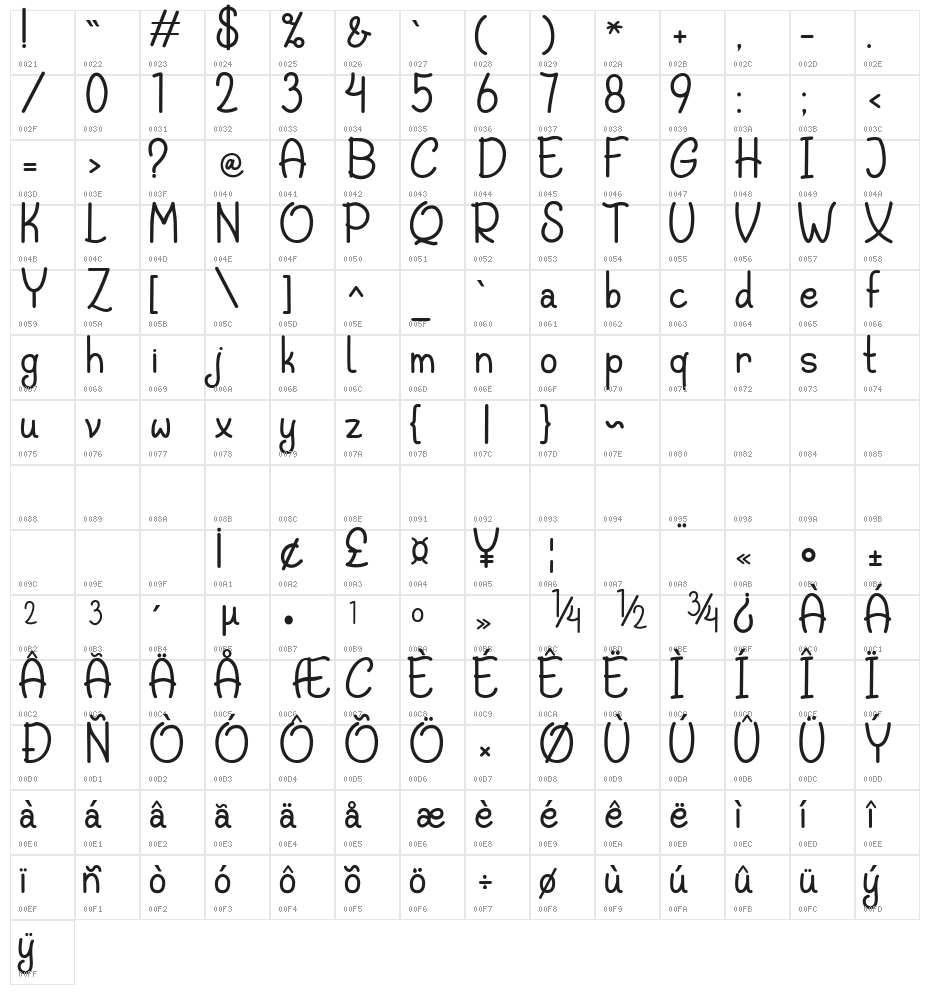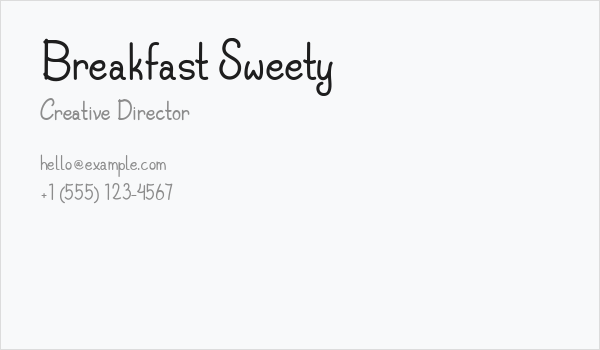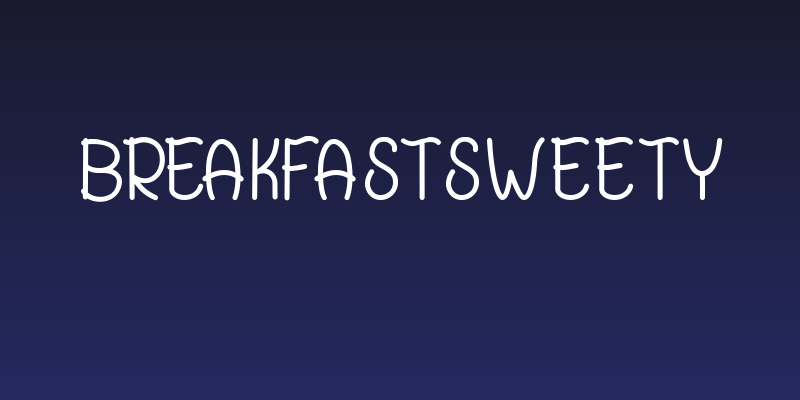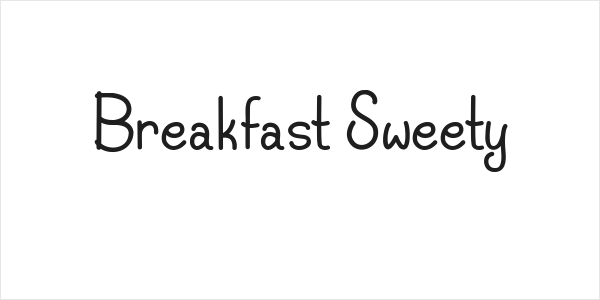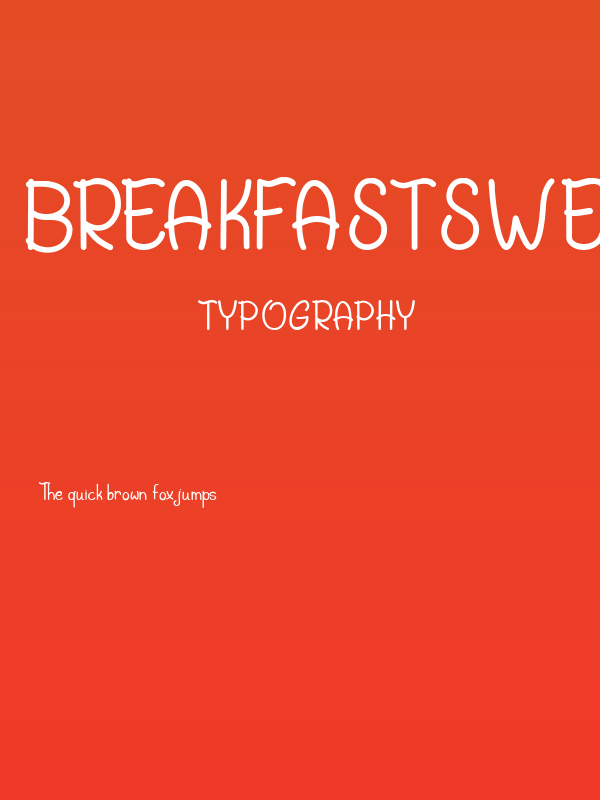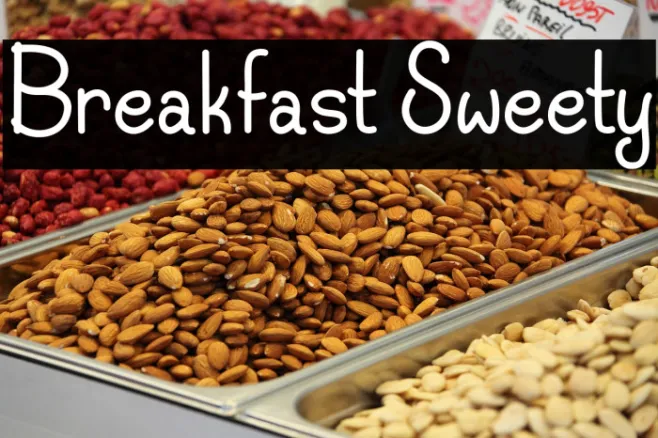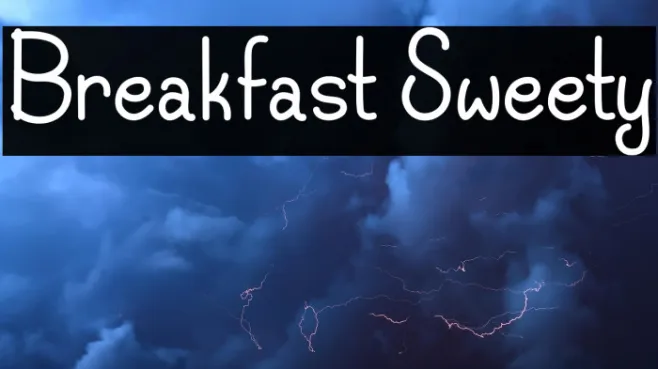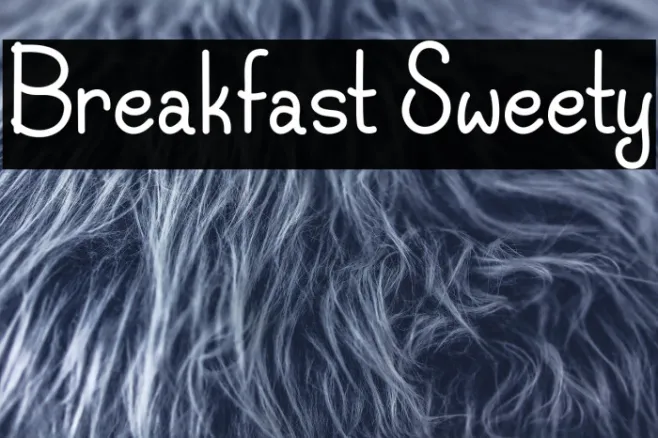
Breakfast Sweety Font
Breakfast Sweety Description
This playful and whimsical font features rounded, smooth curves that give it a friendly and approachable appearance. The letters are slightly elongated with a consistent stroke width, creating a harmonious and balanced look. The uppercase characters maintain a uniform height, while the lowercase letters exhibit a gentle, flowing style that enhances readability. The numerals are clear and distinct, matching the overall aesthetic of the alphabet. Special characters are creatively designed, adding to the font's charm. This font is perfect for projects that require a fun and informal touch.
| Proposed Projects | Ideal for children's books, greeting cards, playful branding, and casual invitations. |